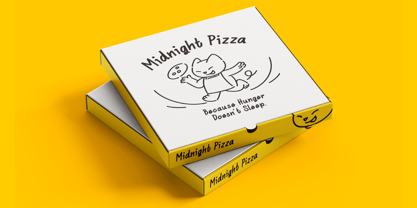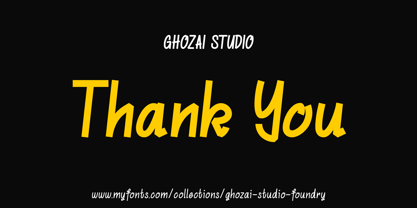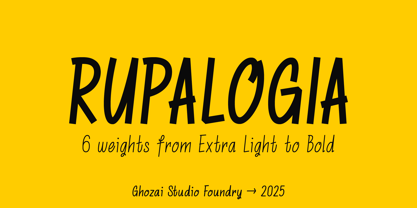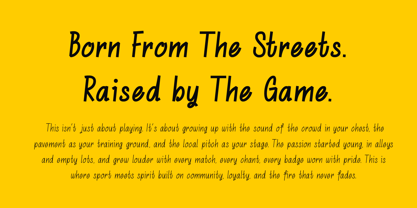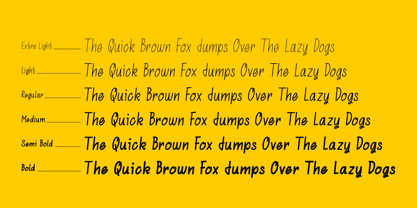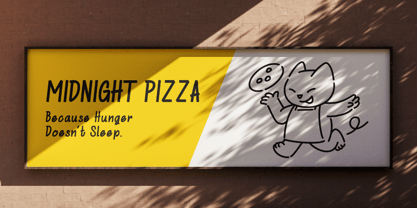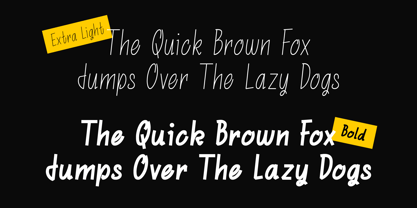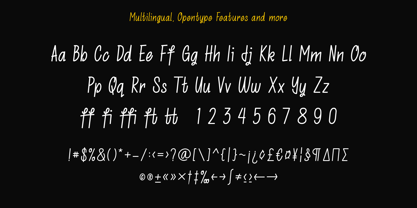
Rupalogia
by Ghozai Studio
The Rupalogia Font Family was designed by Manzur Ghozaali and published by Ghozai Studio. Rupalogia contains 6 styles and family package options. More about this family
Rupalogia is a dynamic handrawn font family that features 6 weights, ranging from Extra Light to Bold. With a wide variety of weights, OpenType features, and multilingual glyph support, Rupalogia ensures versatility across different languages and design needs. Its fun, hadwritting style, and fluid design makes it ideal for a variety of applications, including display, branding, signage, festival poster and more. Whether creating impactful headlines, distinctive logos, or clear signage, Rupalogia delivers both style and functionality. Its flexibility allows it to adapt to different design styles, making it the perfect choice for any project that requires a bold and contemporary touch.
Designers: Manzur Ghozaali
Foundry: Ghozai Studio